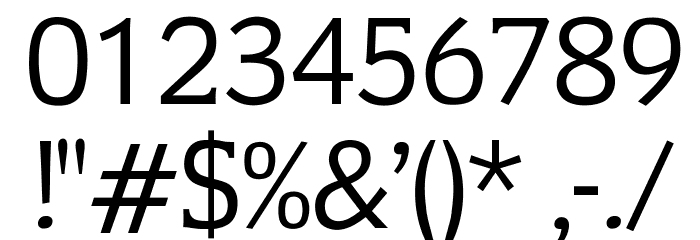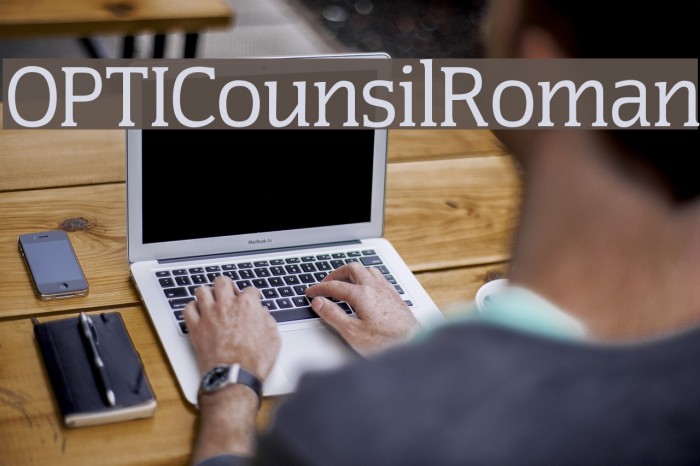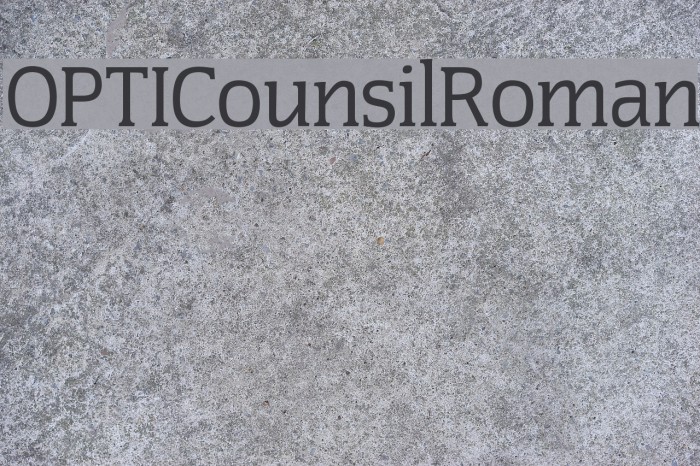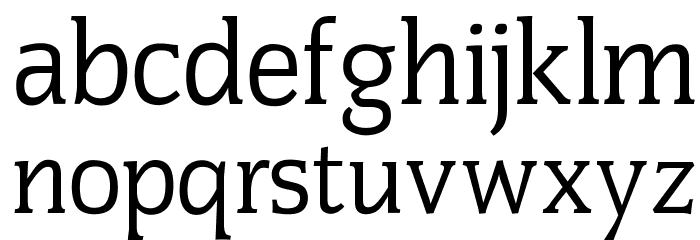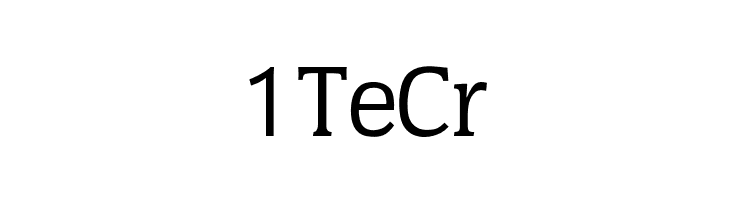
OPTICounsilRoman Font
OPTICounsilRoman Description
This font features a classic serif style with a modern twist, characterized by its clean lines and balanced proportions. The uppercase letters are bold and commanding, while the lowercase letters maintain a harmonious flow. The numerals are clear and distinct, making them easily readable. Special characters are well-integrated, adding versatility to the font. The overall design is elegant and timeless, suitable for a variety of applications.
A modern serif font with clean lines and balanced proportions from Uncategorized fonts.
- Proposed Projects: Ideal for editorial design, book covers, branding, and formal invitations.
- Overall Style: Classic